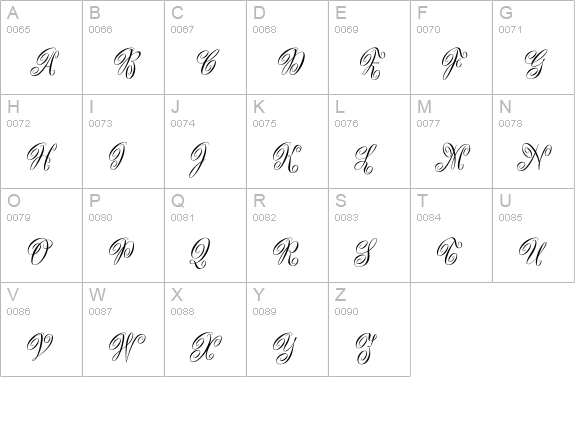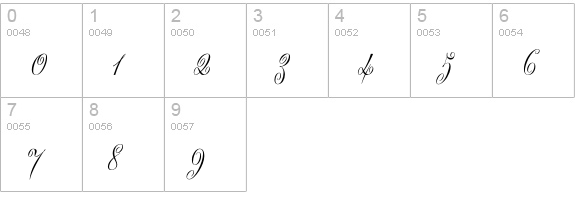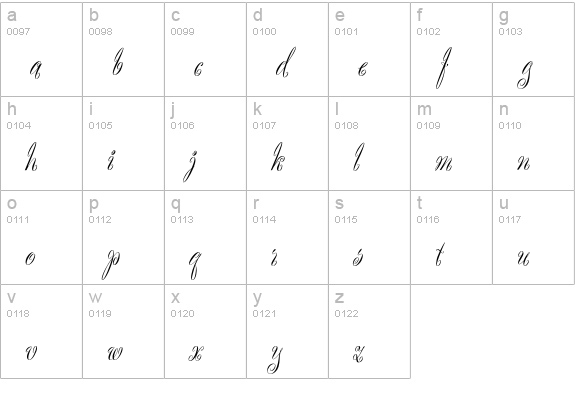
Scriptease Std Font Details
Scriptease Std is a whimsical and elegant font that effortlessly merges sophistication with playfulness. Its flowing and graceful letterforms bring a sense of charm and character to any project. Whether you're designing invitations, greeting cards, or branding materials, Scriptease Std is the perfect choice to add a touch of elegance and personality. This font is not only visually appealing but also highly versatile. With its smooth and fluid strokes, it can be used for both formal and informal designs. It exudes a sense of effortless beauty, making it suitable for everything from wedding invitations to product packaging. One of the best features of Scriptease Std is that it is freely available to download at FontsMarket.com. This means that you can enjoy this stunning font without any restrictions, making it an ideal option for both personal and commercial projects. Whether you're a professional designer or a hobbyist, having access to high-quality fonts like Scriptease Std can greatly enhance your creative endeavors. The attention to detail in Scriptease Std is evident in every letter. The elegant swashes and ligatures add a touch of sophistication, while the slightly slanted and slightly curved letterforms give the font a playful and modern feel. This balance between elegance and playfulness makes Scriptease Std a truly unique and captivating font. Scriptease Std is a true work of art, created with passion and craftsmanship. It is designed to capture attention and make a lasting impression, whether it's used in print or digital media. Its versatility and beauty make it a must-have font for any designer or creative enthusiast. In conclusion, Scriptease Std is a free font that combines elegance and playfulness in a truly mesmerizing way. Its smooth and flowing letterforms make it a versatile choice for a wide range of design projects. Download your copy of Scriptease Std today at FontsMarket.com and start adding a touch of sophistication to your creations.